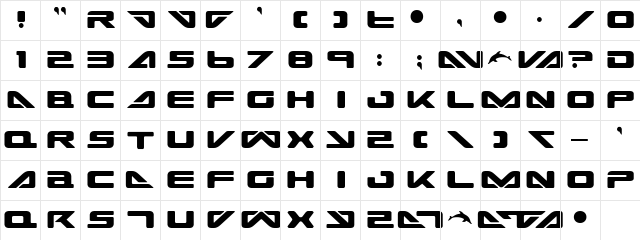
Sea Dog 2001 Font Preview
Design Context for Sea Dog 2001 Typeface
Sea Dog 2001 is a composed and adaptable typeface that performs quietly and consistently across a wide range of design contexts.
Pro Tip: Use Sea Dog 2001 in both headline and body roles to test its range before committing to a single application.